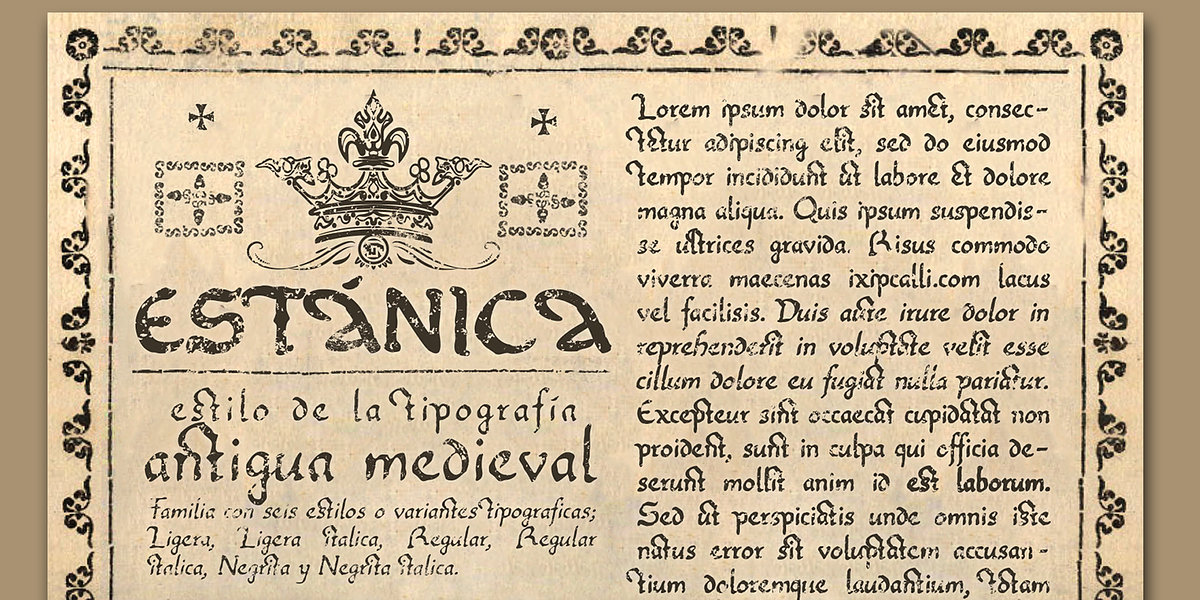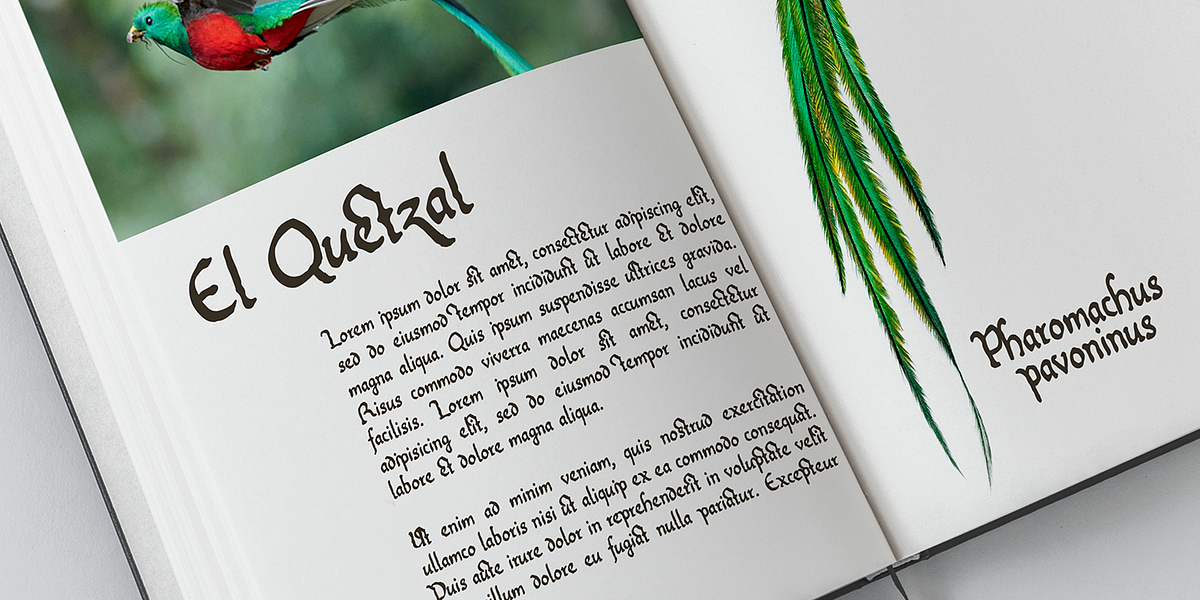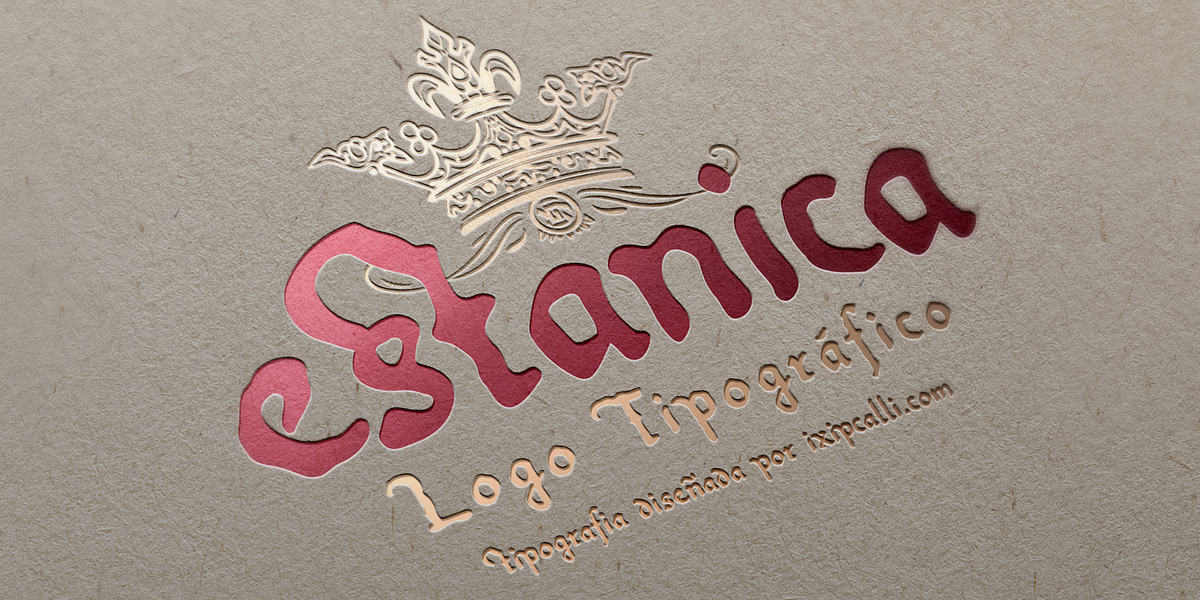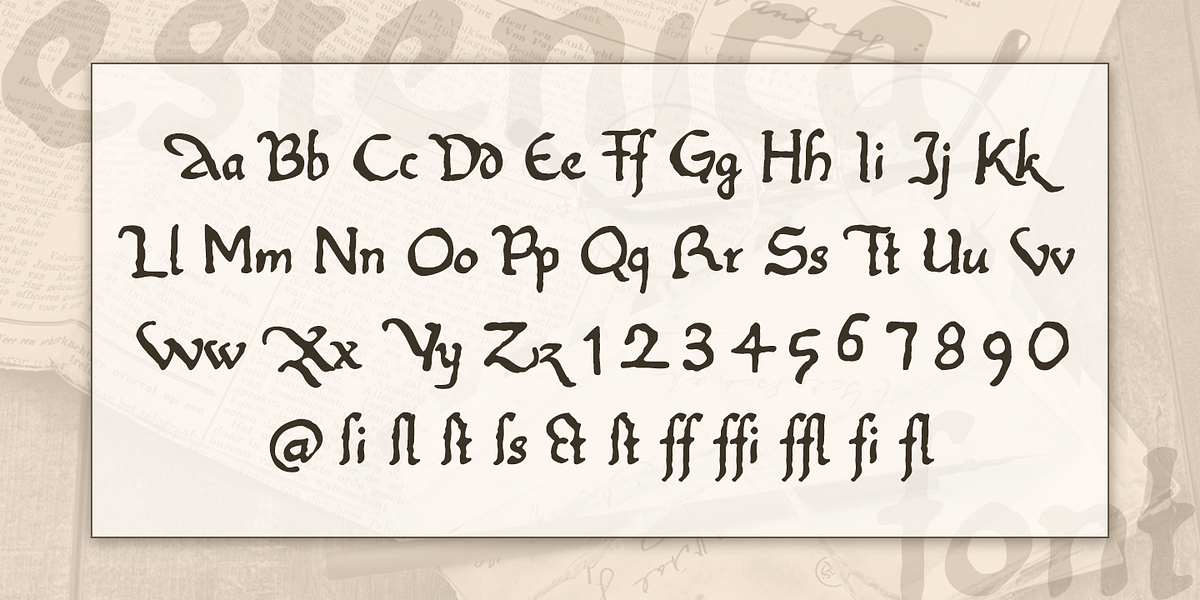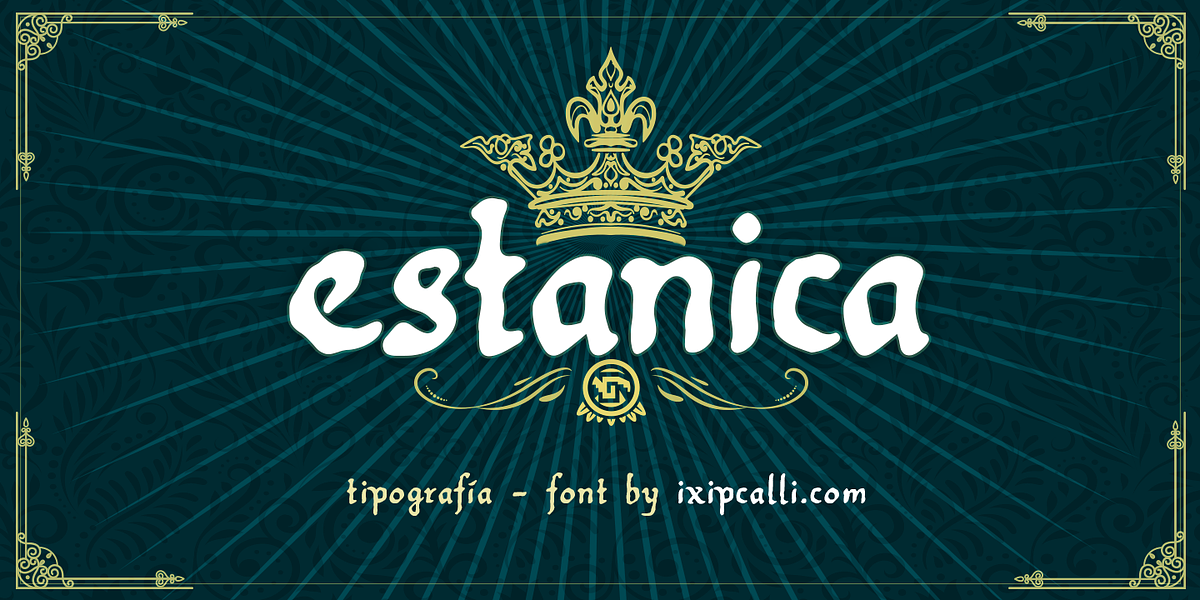
Estanica
This font is a calligraphic display typeface inspired by the handwriting styles of Spanish writers in the 16th century. It would be suitable for use in titles, book covers, and other projects requiring a vintage, elegant feel.